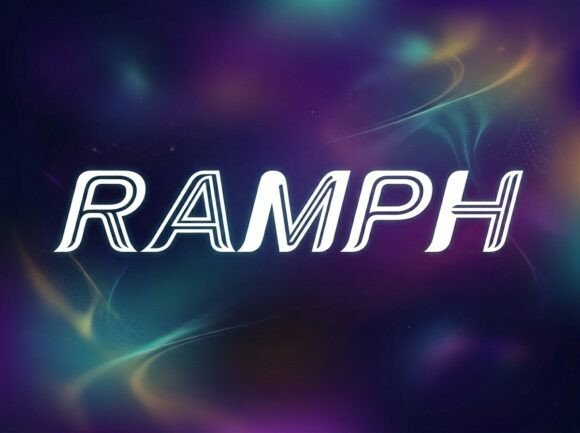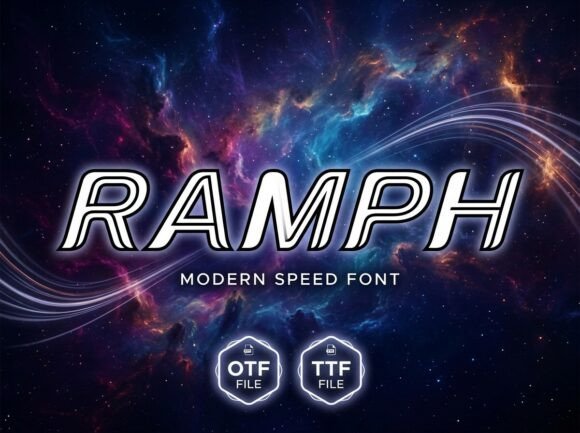
Introduction to Ramph Font
Have you ever found yourself stuck in a creative rut, desperately searching for that one design element that will elevate your project from ordinary to extraordinary? As a designer, you know how crucial it is to have the right tools at your disposal to bring your vision to life. That’s where the Ramph Font comes in – a stunning decorative display font designed to be the center of attention.
This high-quality font is the perfect design resource for creators who want to break away from the ordinary and make a lasting impression. With its unique artistic elements and strong visual personality, the Ramph Font is versatile enough for bold headlines, artistic logos, and creative packaging. Plus, its professional and polished finish ensures that your work will stand out from the crowd.
Whether you’re working on a free download or a paid project, the Ramph Font is a valuable addition to your design toolkit. Its transparent background and all-caps design make it perfect for high-impact headlines, logos, and decorative initials where every letter is a work of art.
Key Features of Ramph Font
- High-quality, professional font suitable for creative projects and design resources.
- Includes transparent background option, allowing for versatile use in various design applications.
- Features a unique, modern design that adds a touch of elegance to any creative project.
- Perfect for designers, artists, and creatives working on various projects, including graphics, logos, and more.
Honest Review: Ramph Font
As a designer, I’m always on the lookout for high-quality design resources that can help elevate my creative projects. The Ramph Font is one such resource that caught my attention. This modern sans-serif font is perfect for those who want a clean and minimal look for their designs.
- ✨ High quality: The Ramph Font is well-designed and has a professional look to it. The font is crisp and clear, making it perfect for digital designs.
- ✨ Transparent background: The font has a transparent background, which makes it easy to use on any design background.
- ⚠️ Limited character set: The Ramph Font has a limited character set, which may not be suitable for designs that require a lot of text.
- ⚠️ Not suitable for print: The font is designed for digital use and may not be the best choice for print designs.
Overall, I’m impressed with the Ramph Font. It’s a great resource for designers who want a clean and modern look for their designs. While it has some limitations, it’s definitely worth considering for your next creative project.
Tips for Getting the Most Out of Ramph Font
For the best results, use Ramph Font with a high-quality image or design element. Experiment with different font sizes and styles to add visual interest to your project. You can also use Ramph Font as a design resource for free download and use in multiple creative projects.
Ramph Font is ideal for a variety of creative projects, including logos, business cards, and social media graphics. Its high-quality design makes it a great choice for design professionals and hobbyists alike. With a transparent background, Ramph Font can be easily layered and composed with other design elements to create a unique and eye-catching visual effect.
Is the Ramph Font suitable for print or digital projects?
The Ramph Font is a high-quality font that can be used for both print and digital projects. Its clear and legible design makes it perfect for a variety of creative projects, from business cards and brochures to websites and social media graphics. Whether you’re working on a small design project or a large-scale campaign, the Ramph Font is a reliable design resource that can help you achieve your goals.